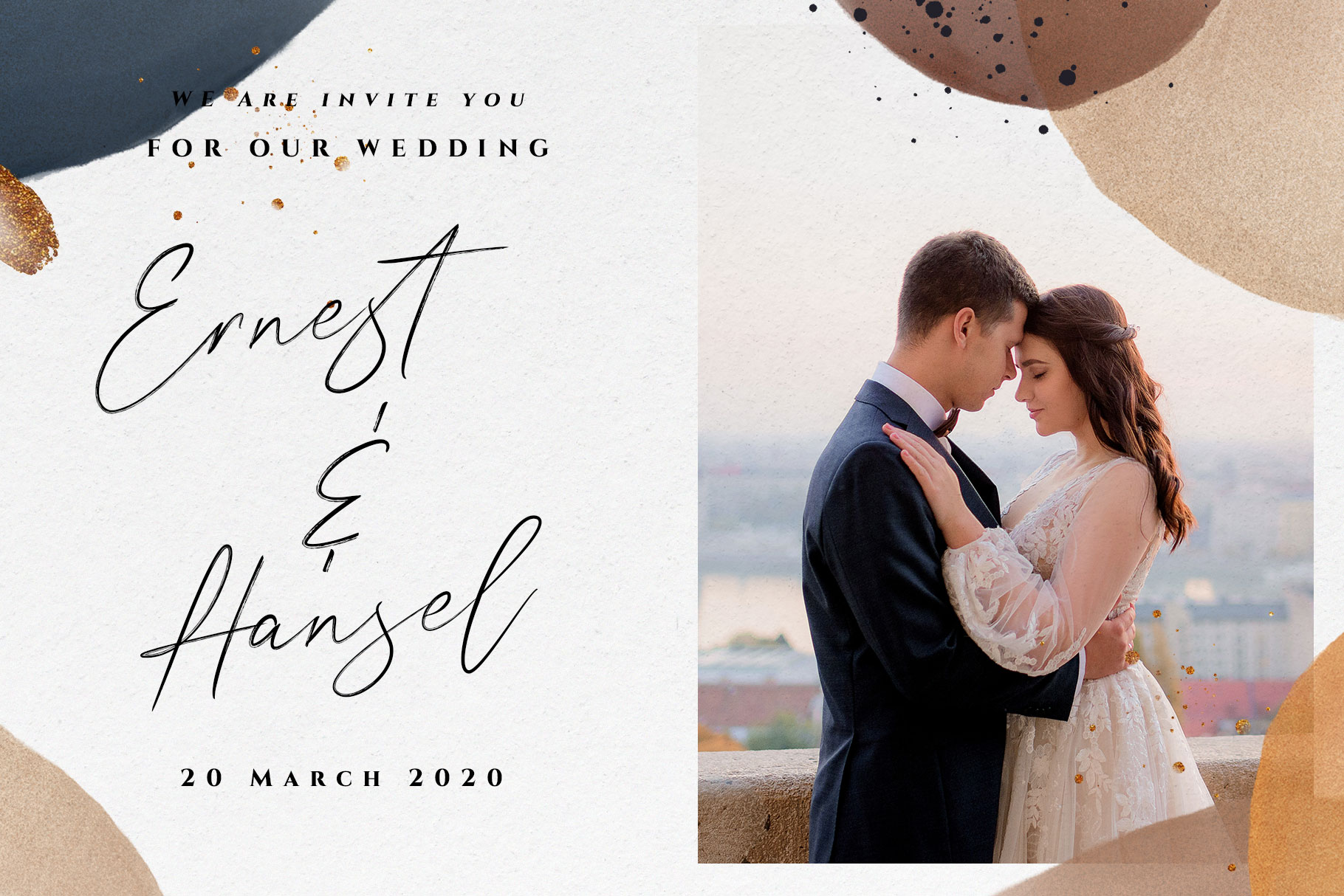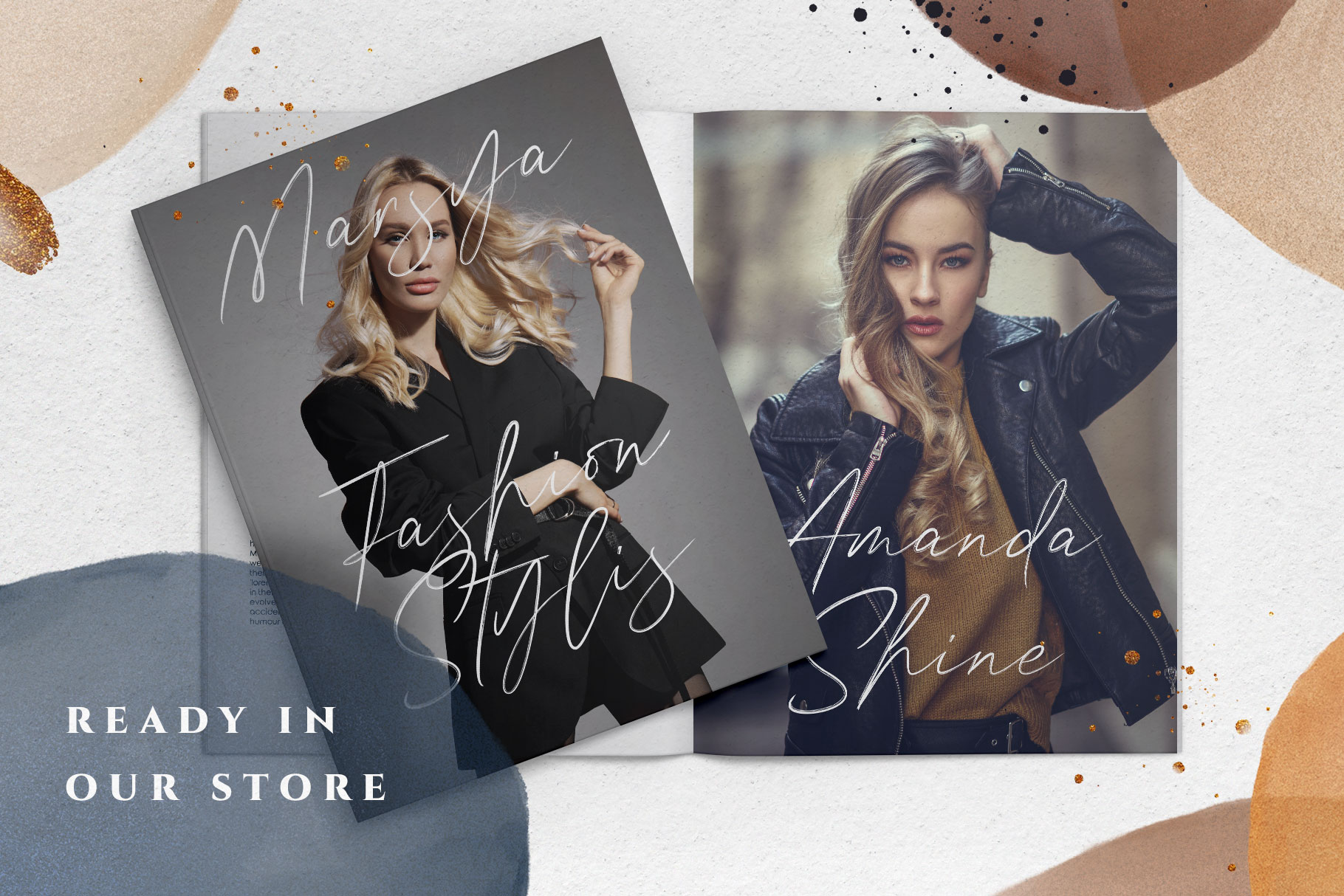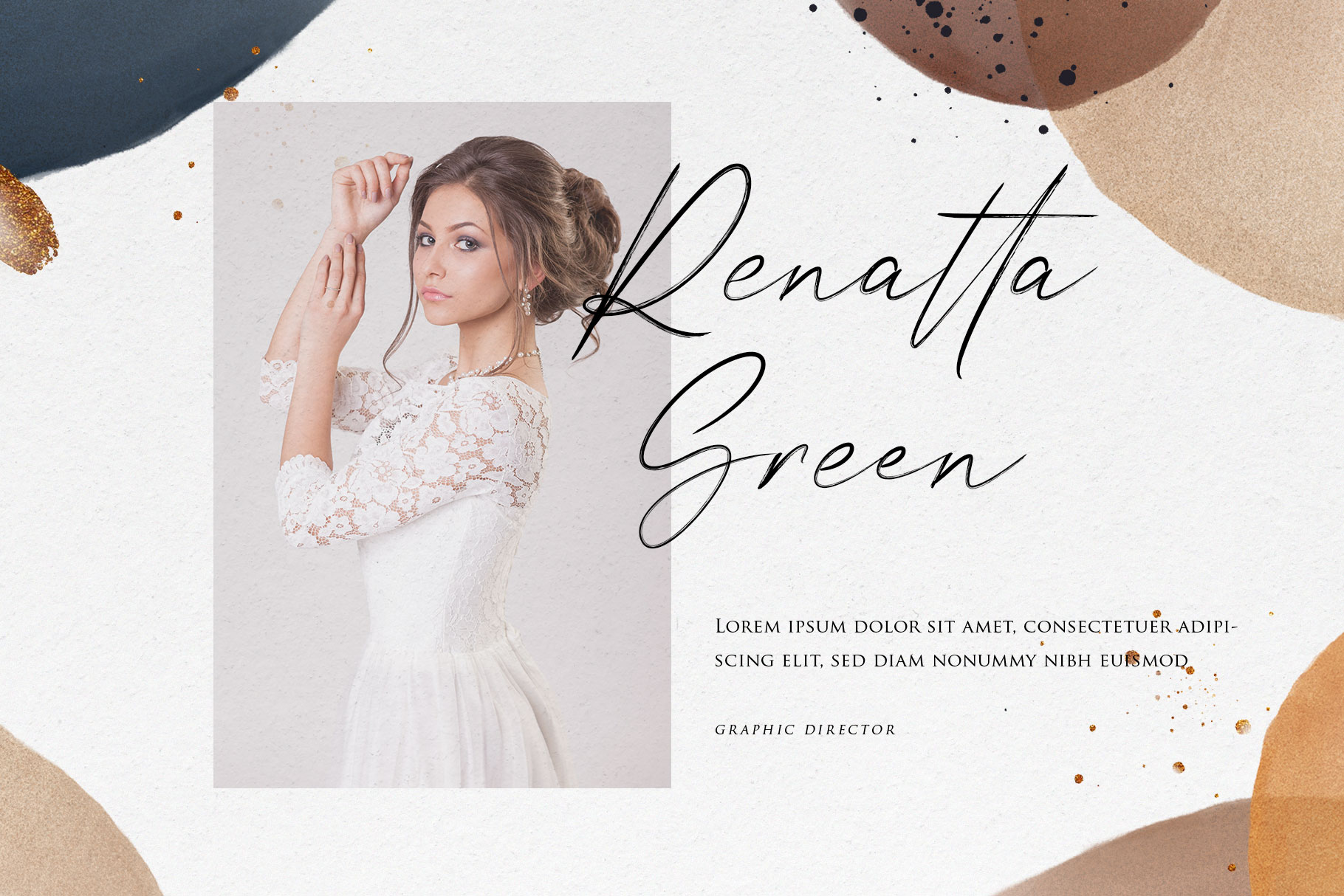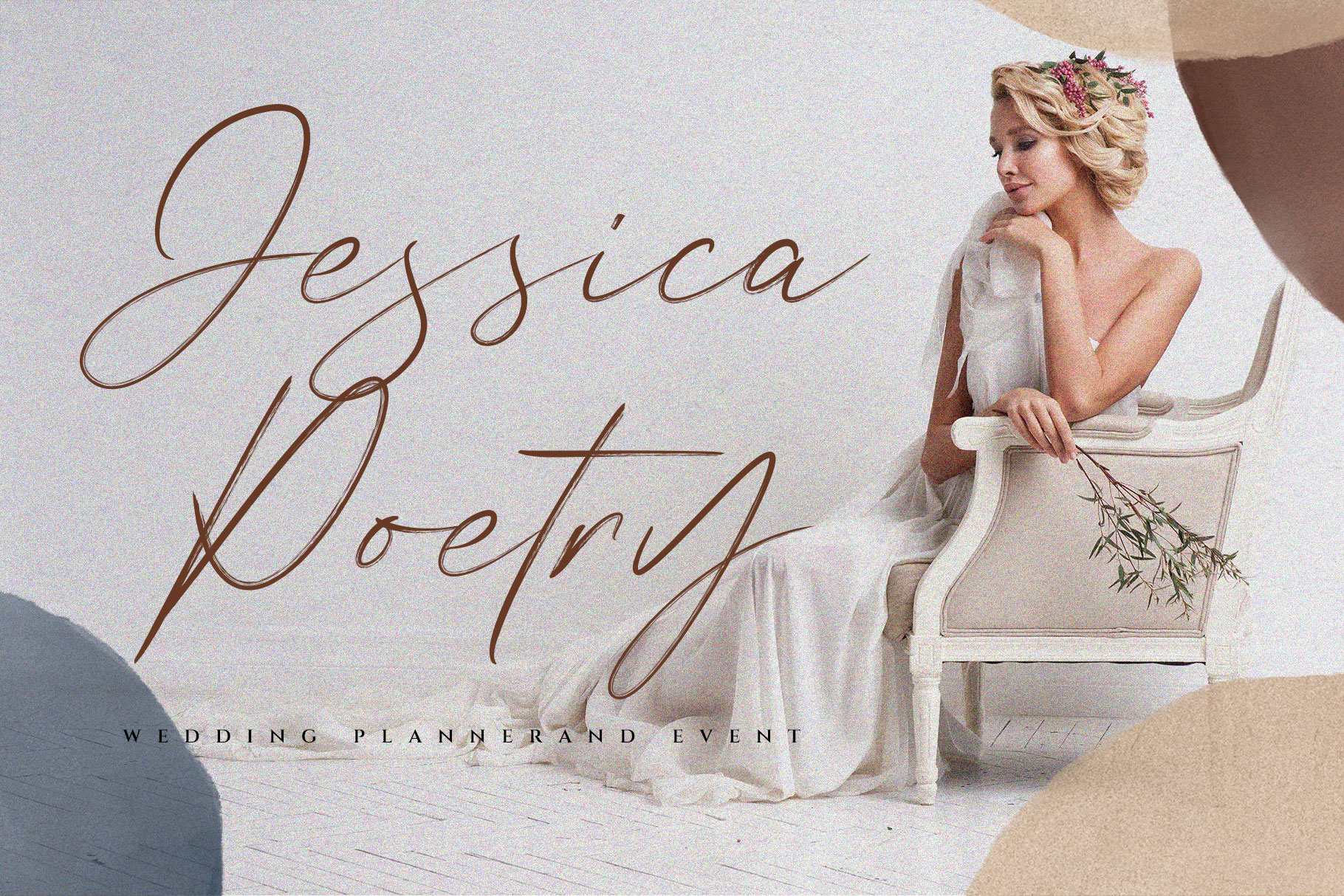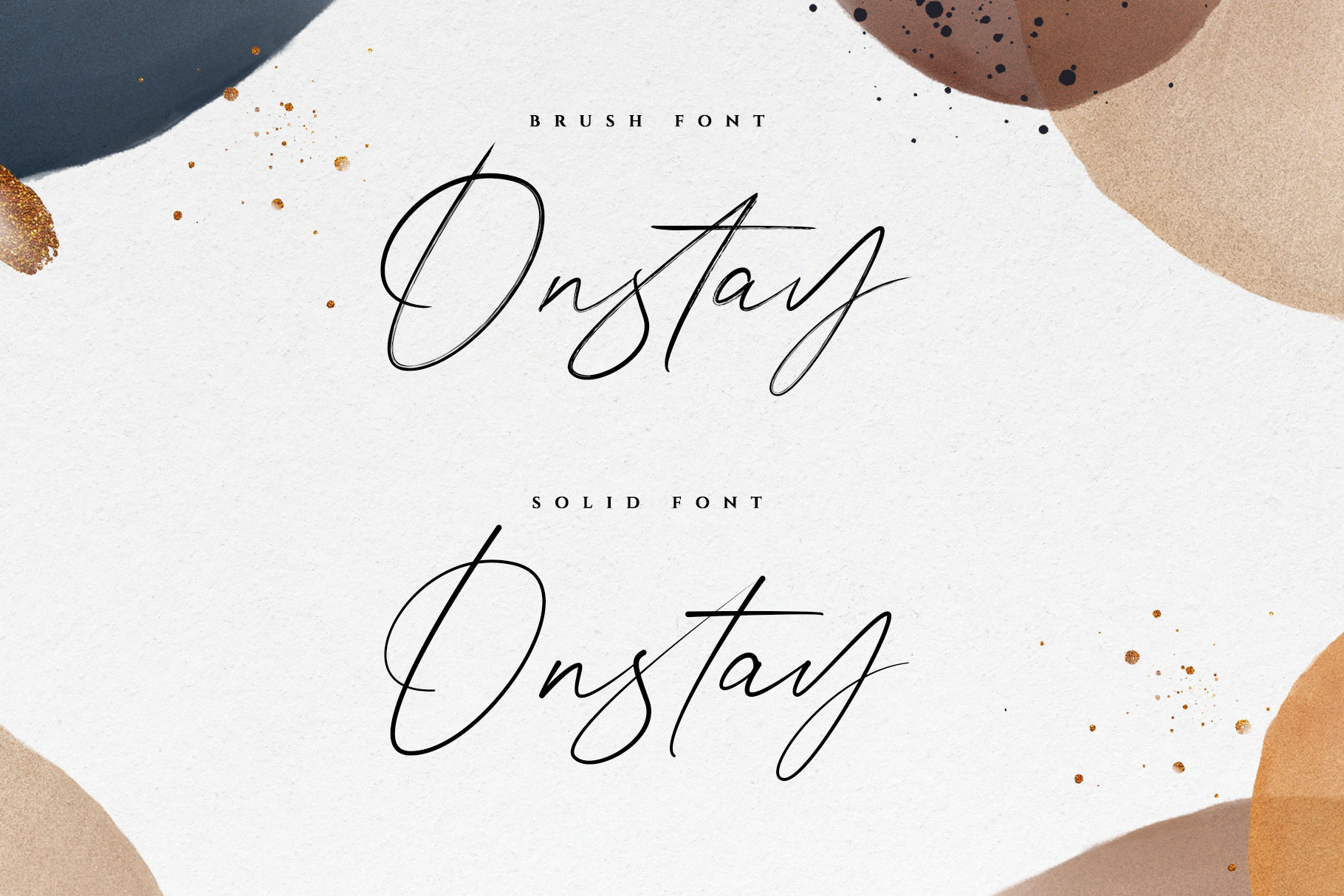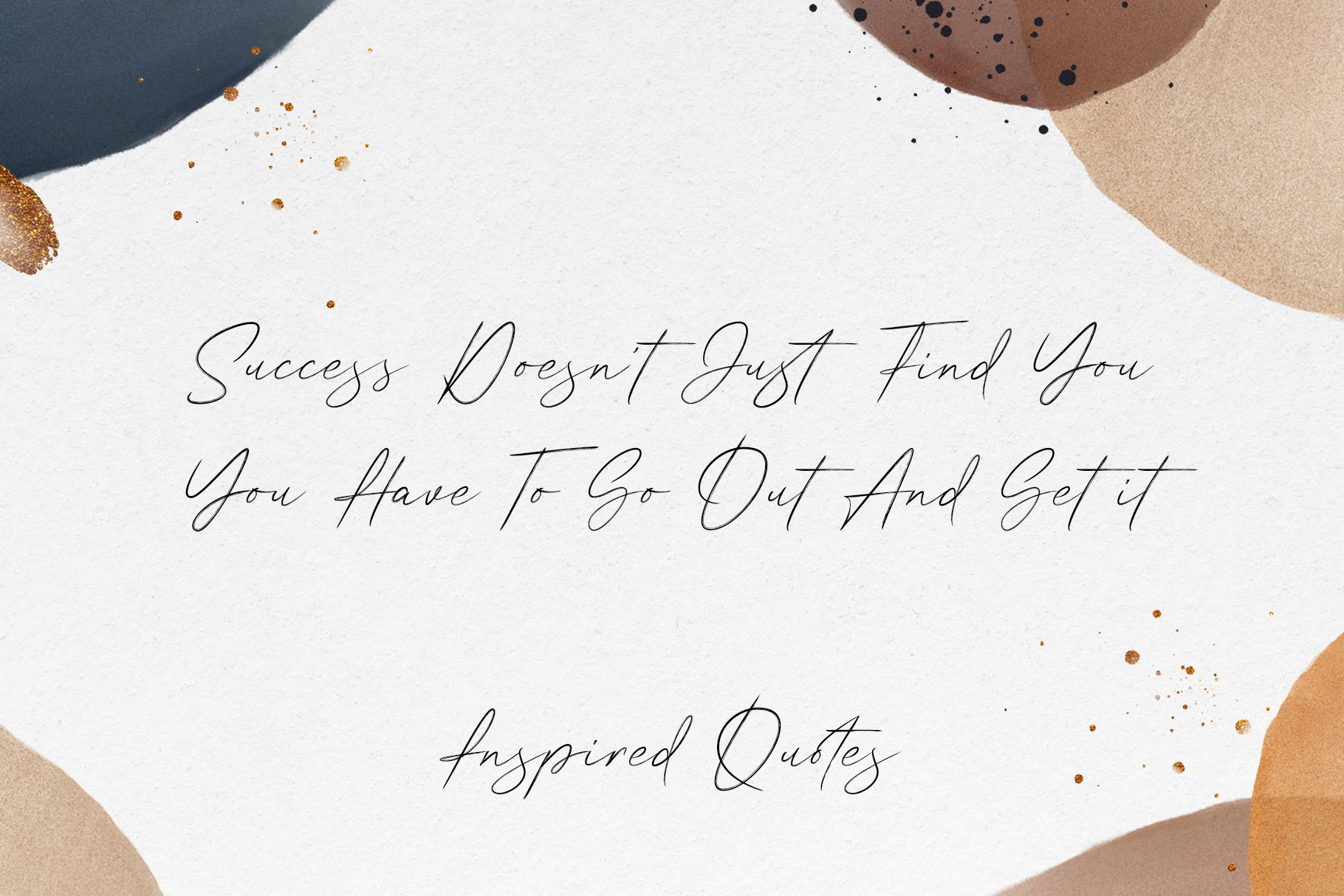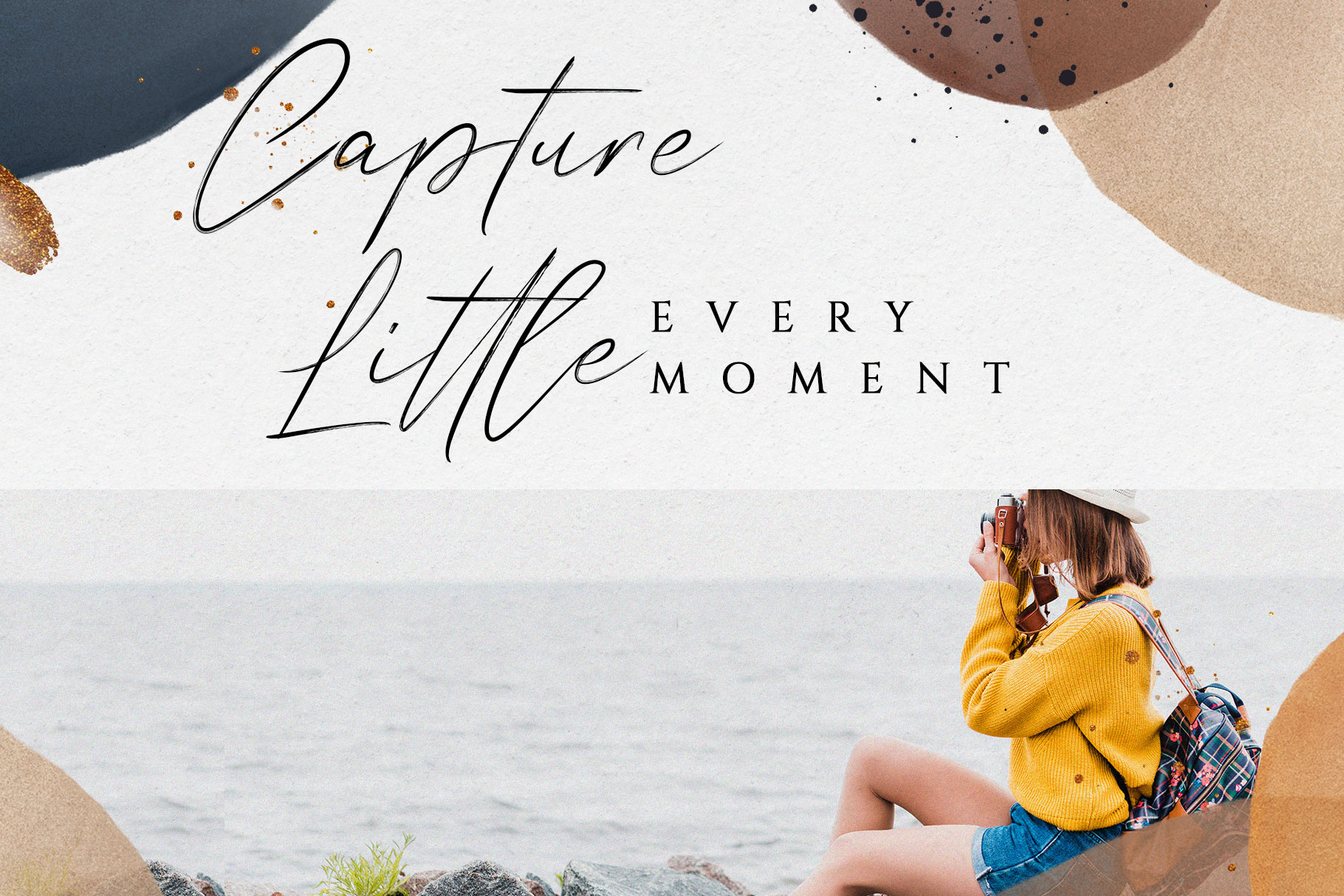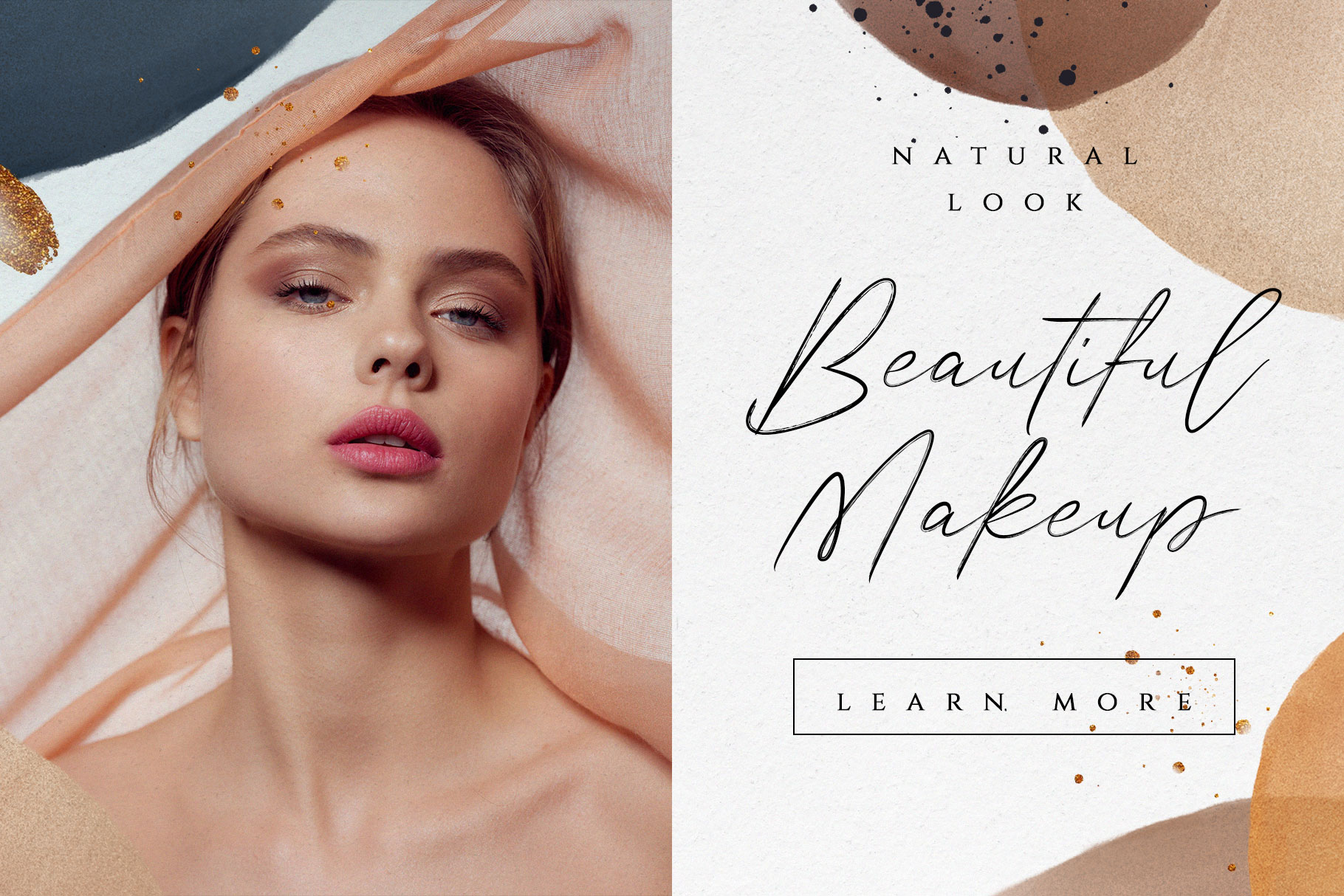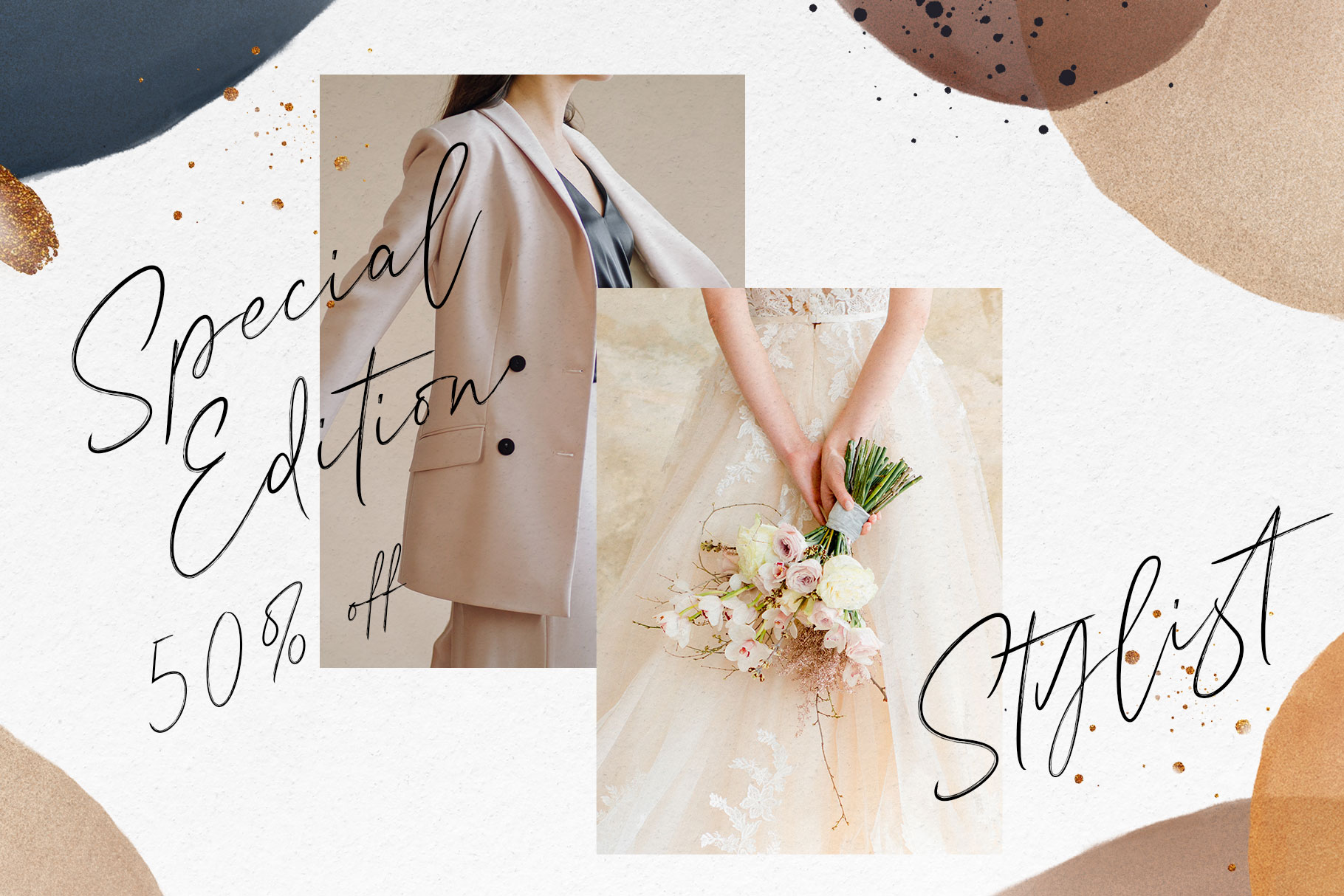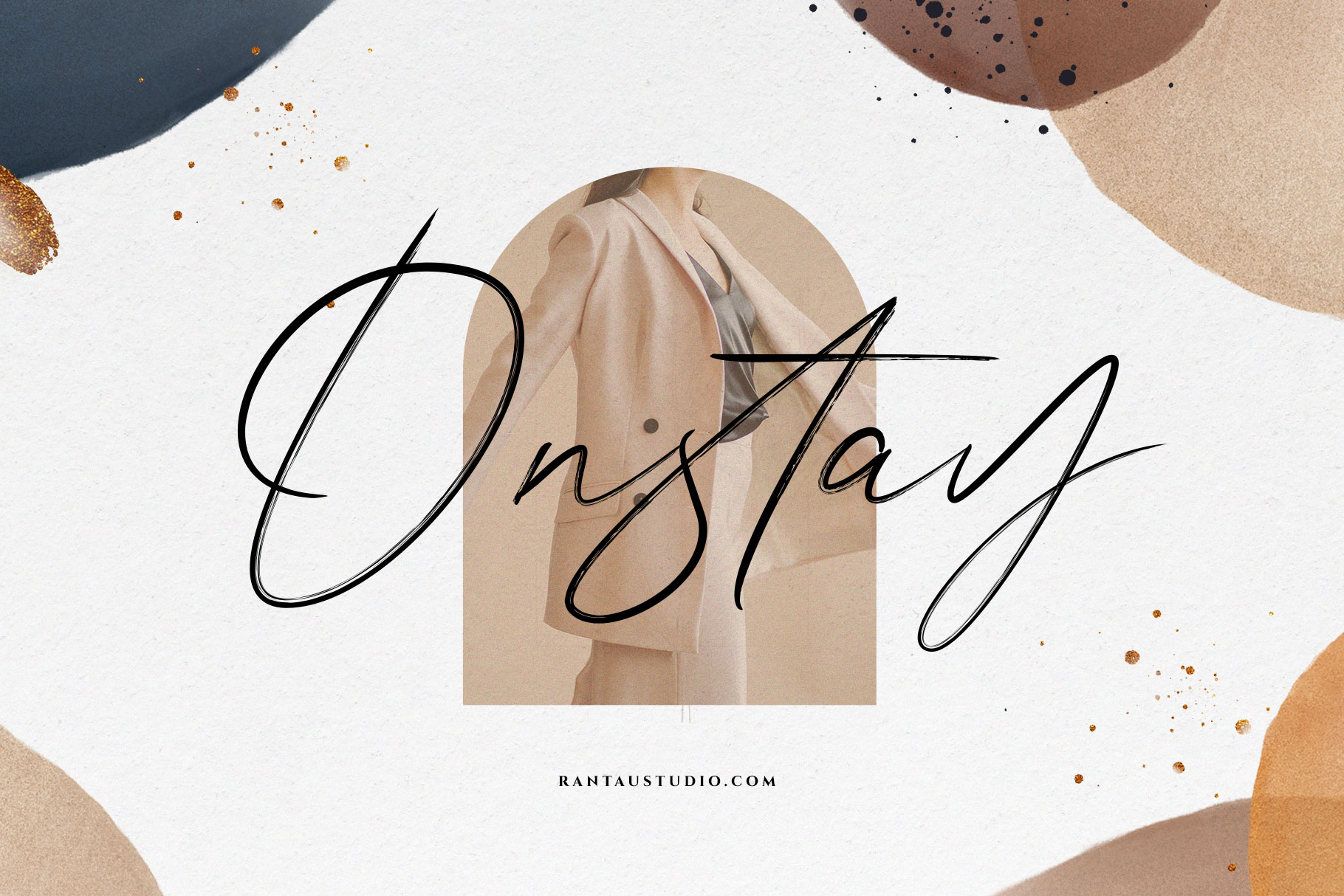
Onstay brush script font
Onstay is elegant style which can be interpreted professional. we keep this font looks modern, readable, stylish, feminine, girly, catchy and easy to use.  Onstay have two styles in solid and brush so you can choice to make your desing beautiful. Onstay brush script is the great choice for watermark on photography, signature or signature logo design, quotes, album cover, magazine, business card and many other design project. Onstay Script here to make your work to high level!!!